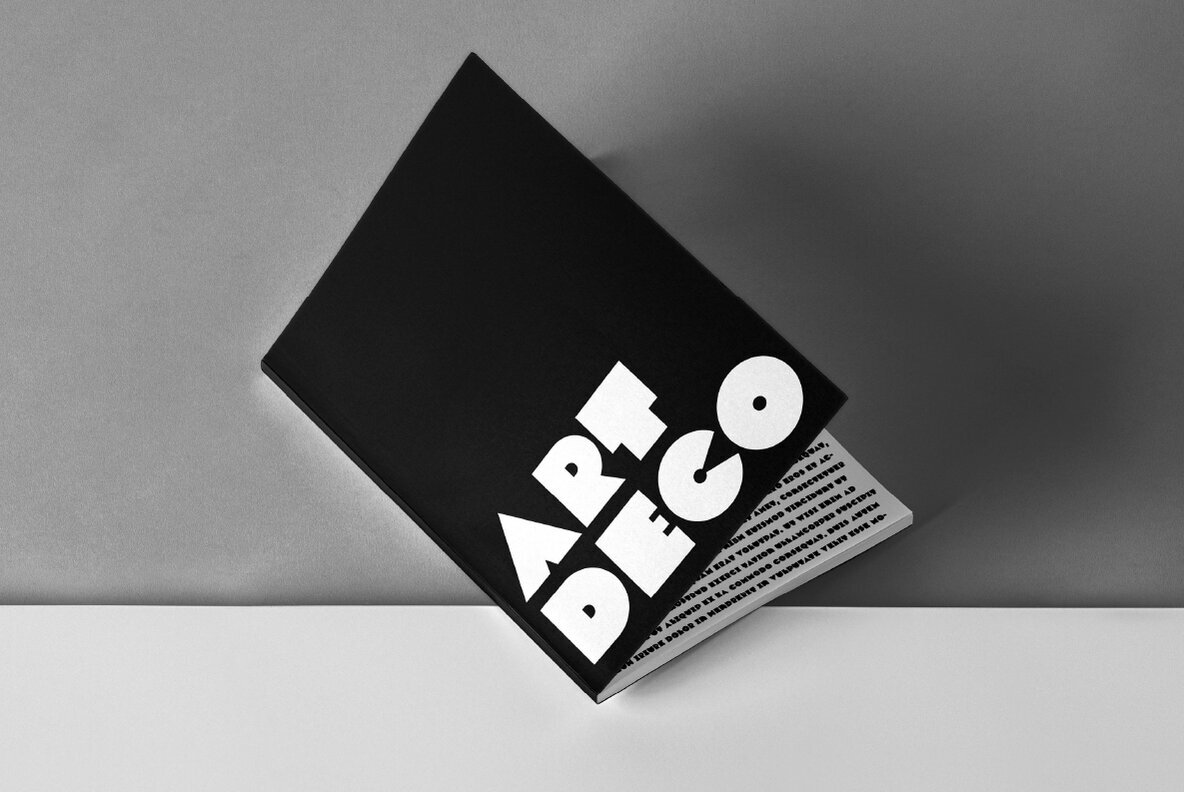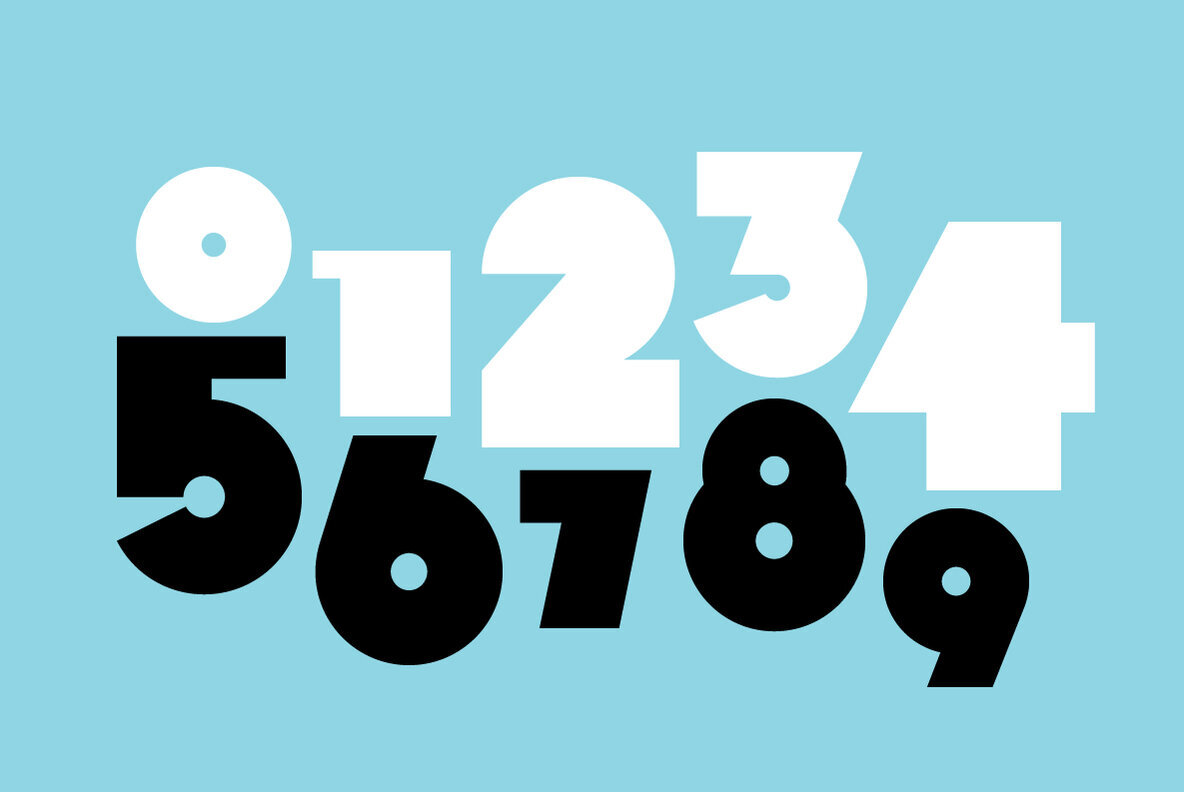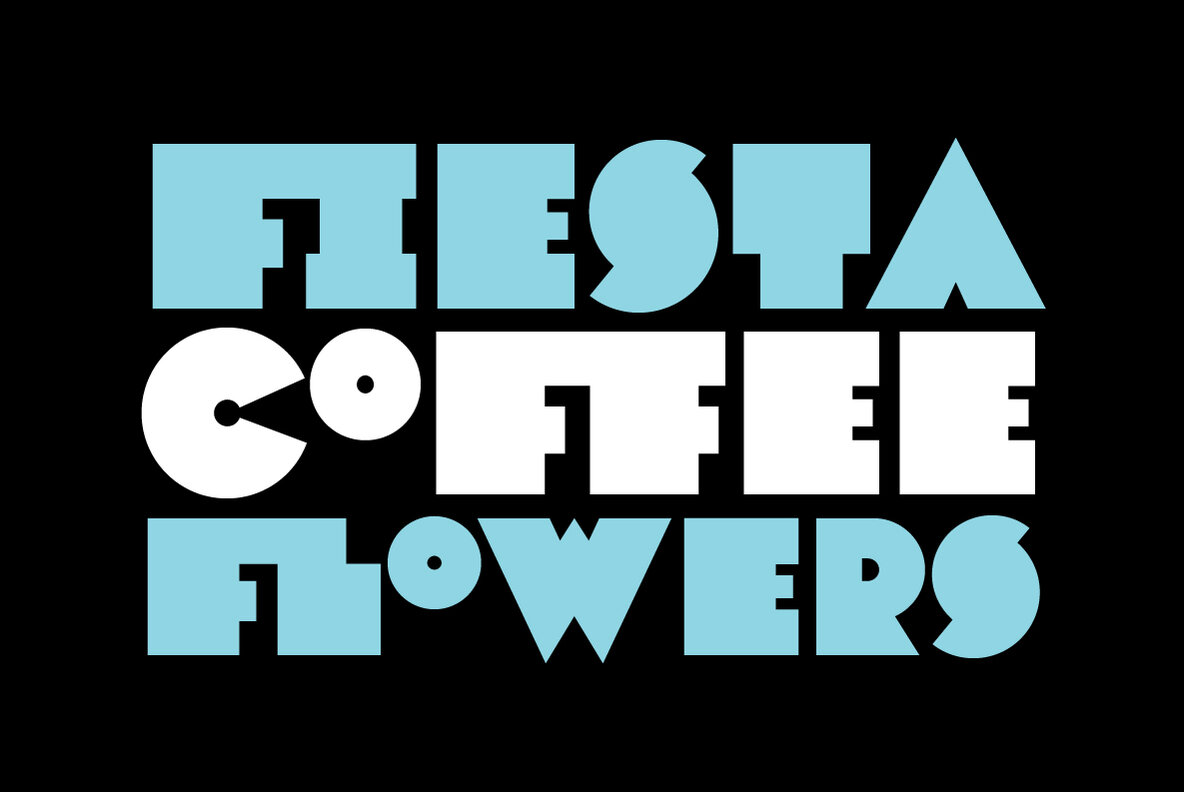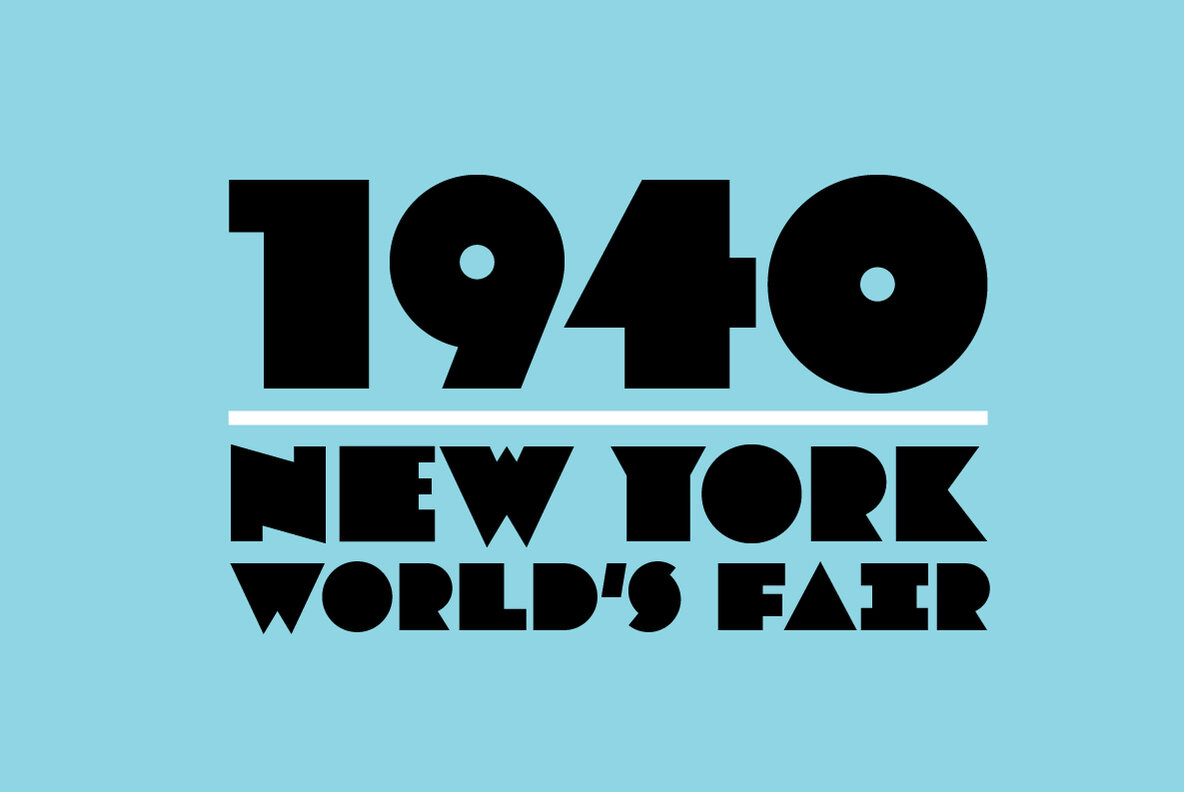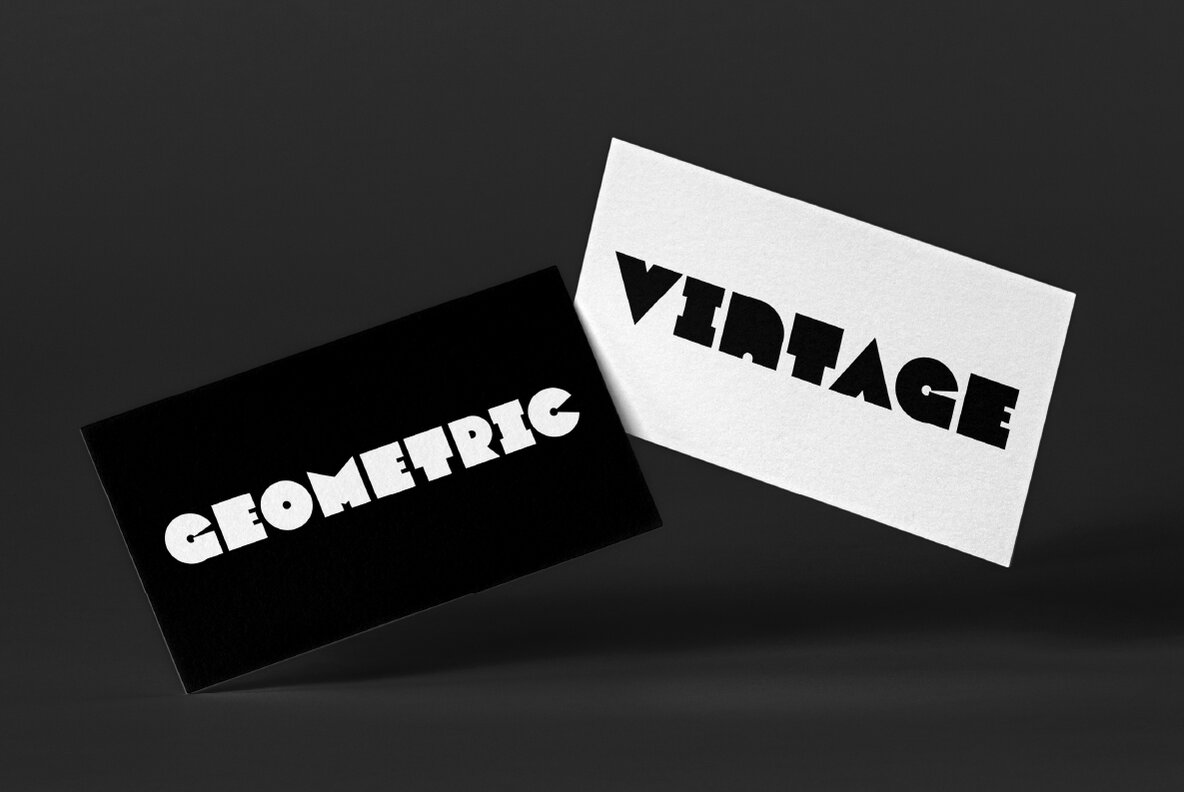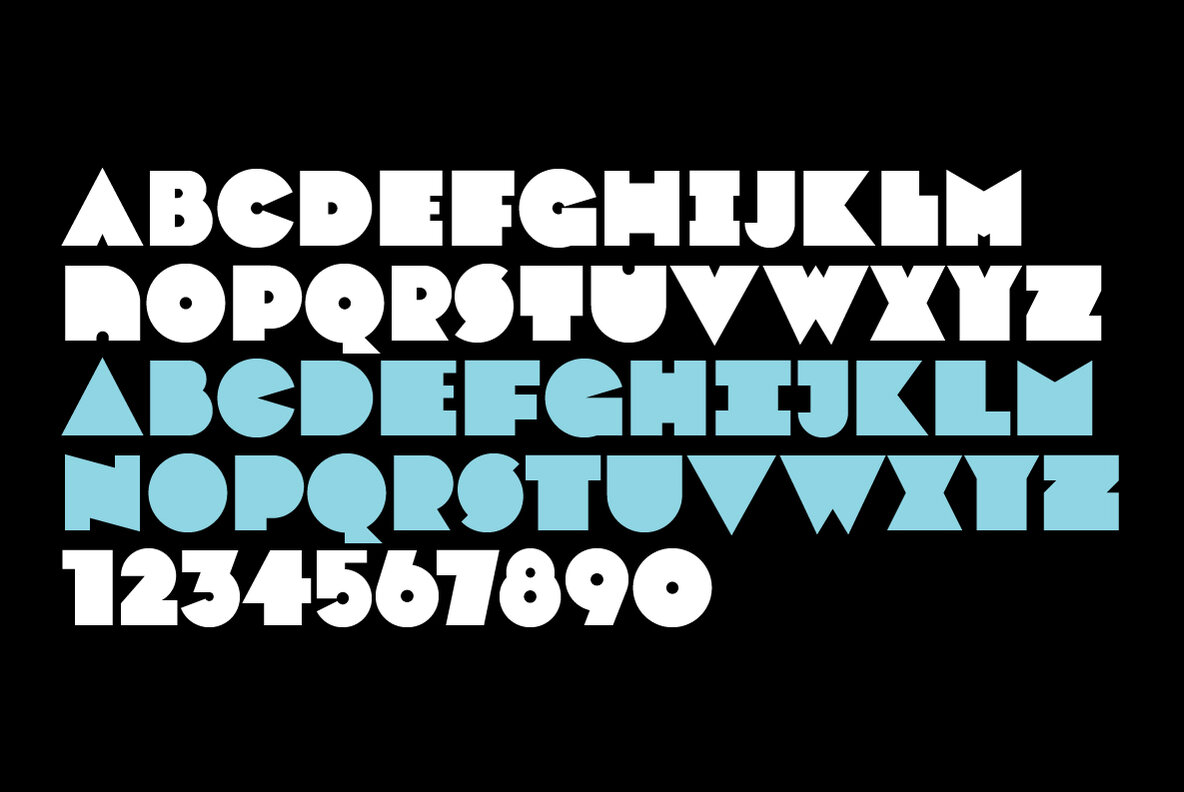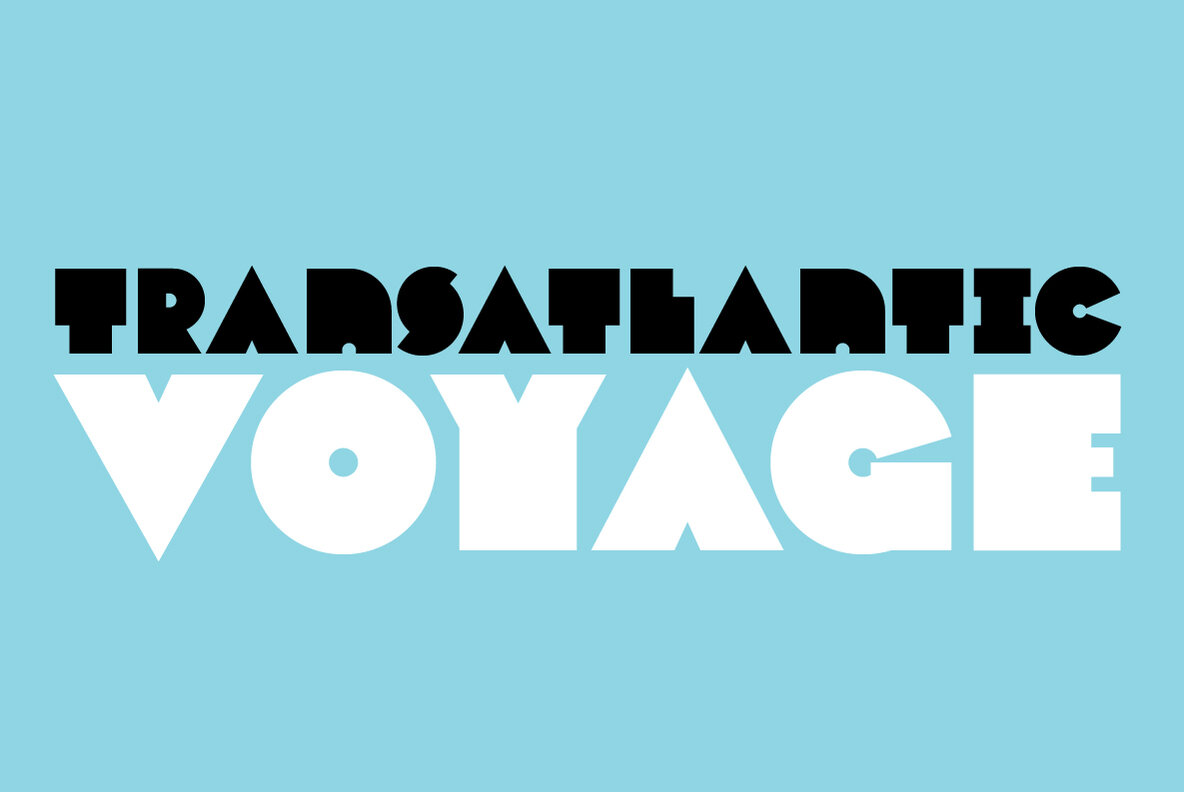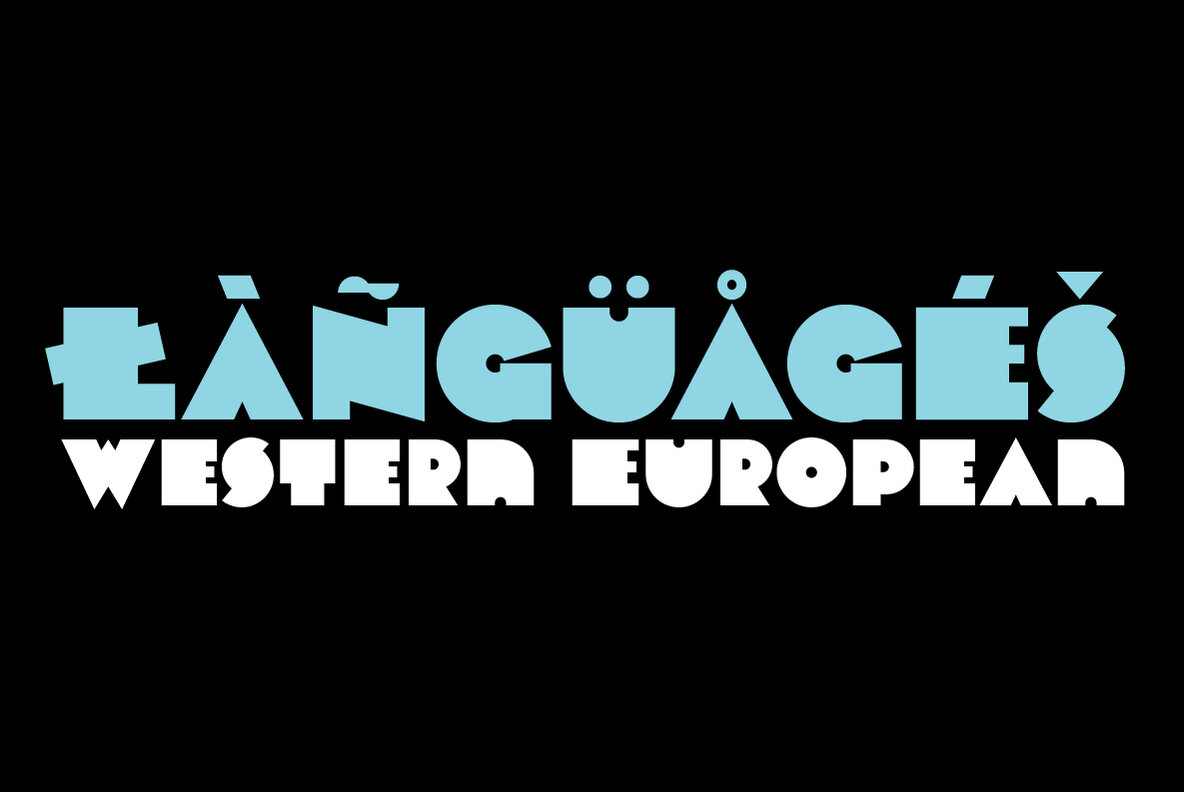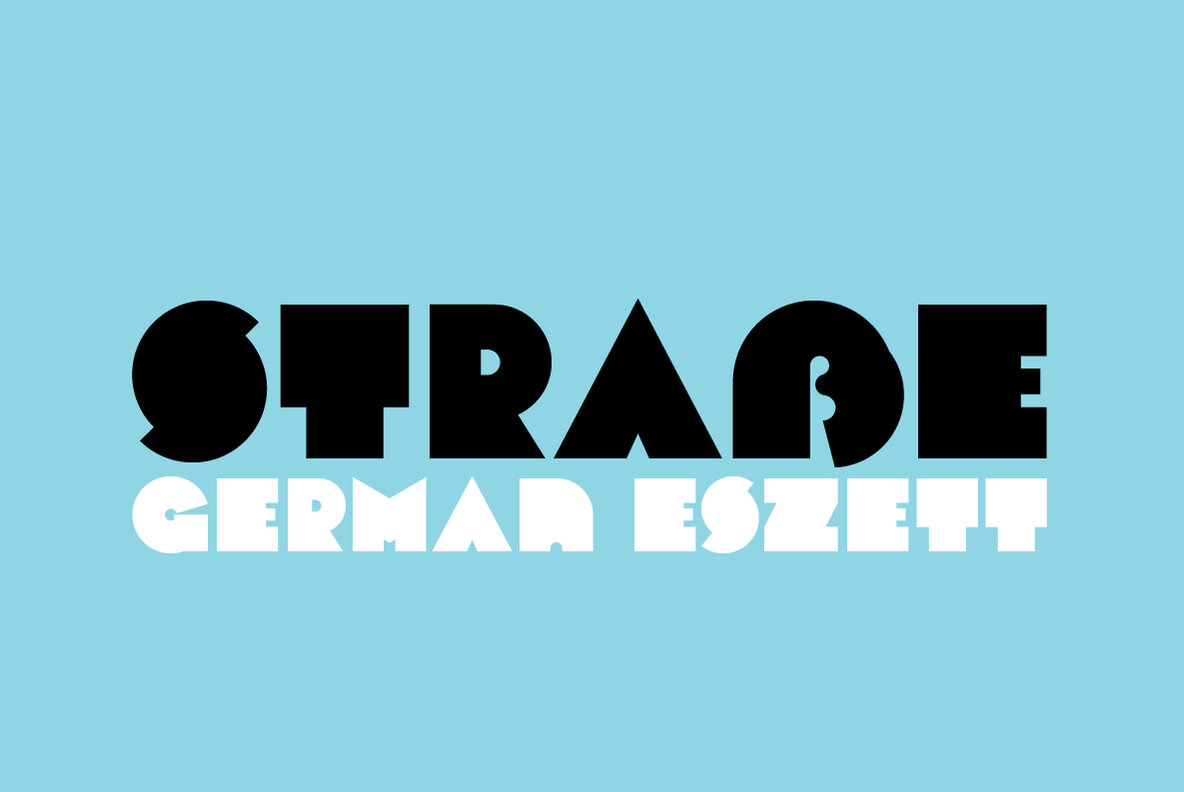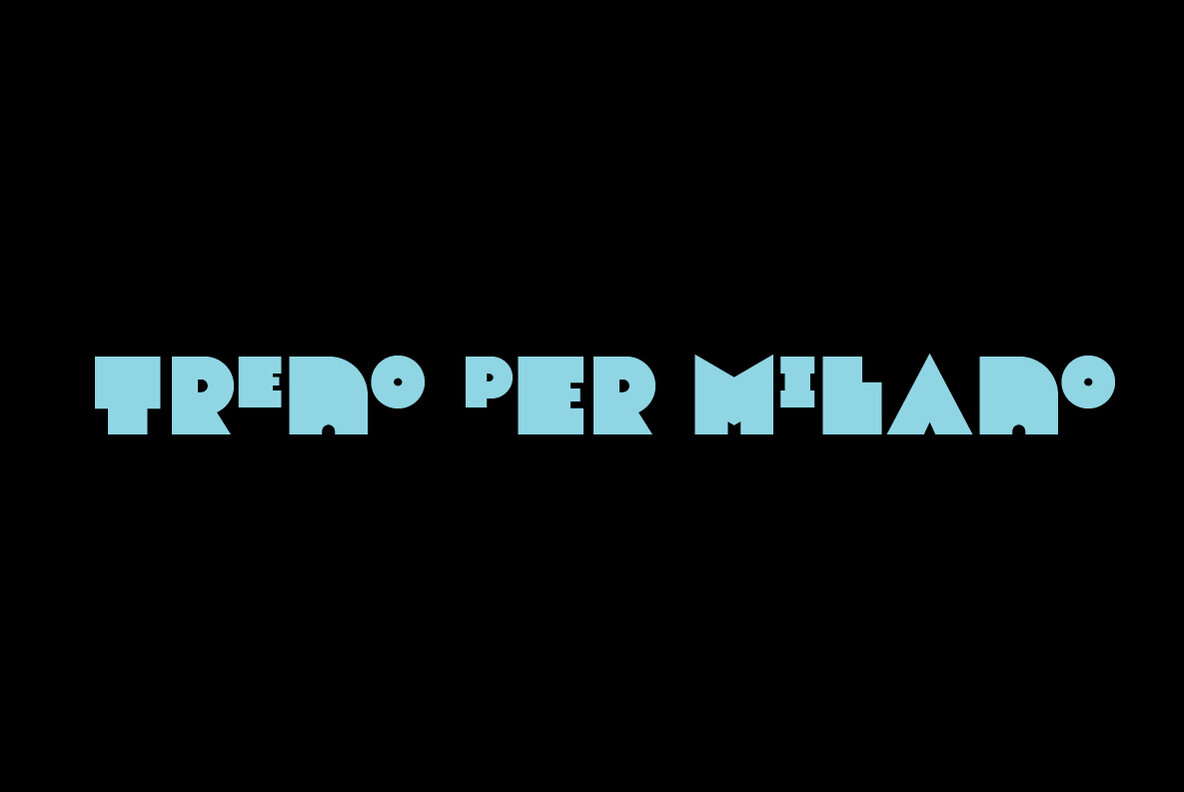
Varese Font
Varese is a geometric and modular typeface inspired by early 1900s Art Deco posters. Its heavy weight is excellent for display or large body text. The lowercase is similar to the uppercase, yet many of the lowercase letters have interior spaces and several have some variations on the form (see H/h, E/e, F/f, I/i, J/j, L/l, N/n, T/t). The lowercase also has two alternate glyph sets that are half size and align with cap height. One of the alternate glyph sets has an underline and the other set does not.
A few of the underlined alternate glyphs may overlap with a full size letter (full size letters like K and V contain the most overlaps), though this is rare.